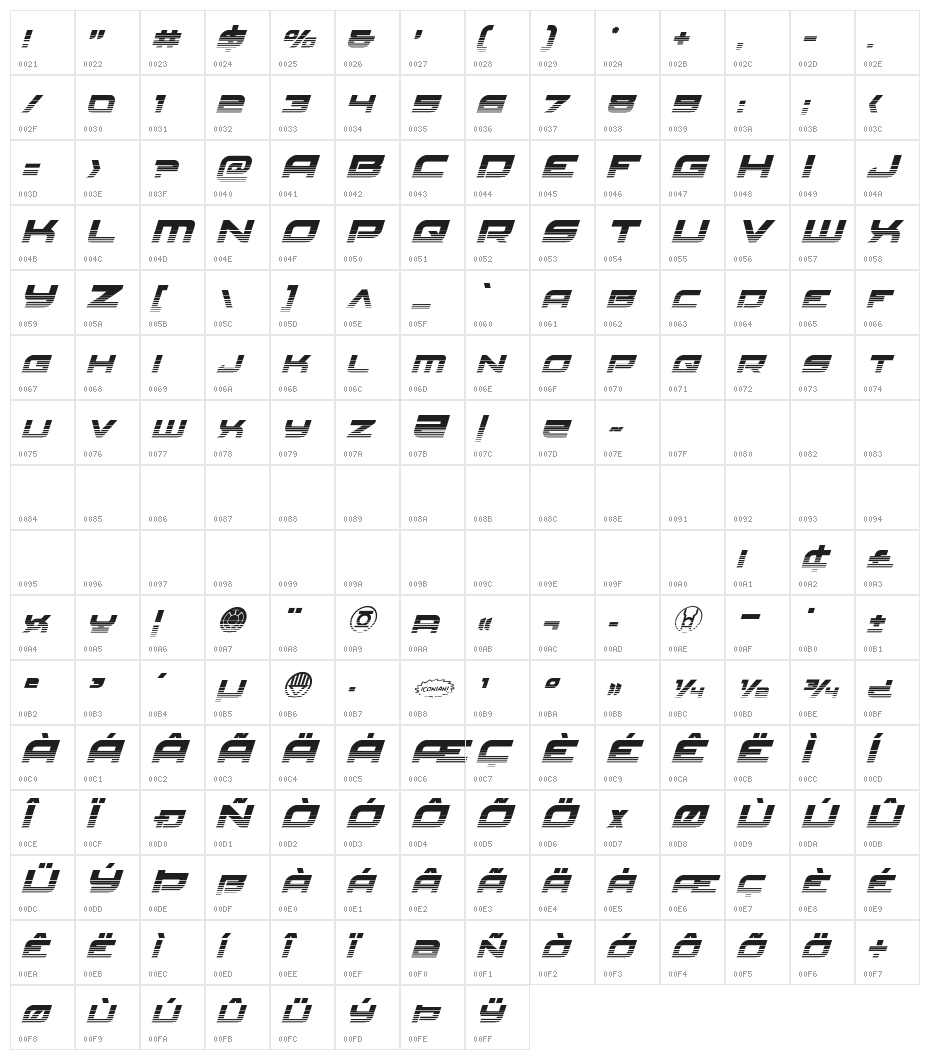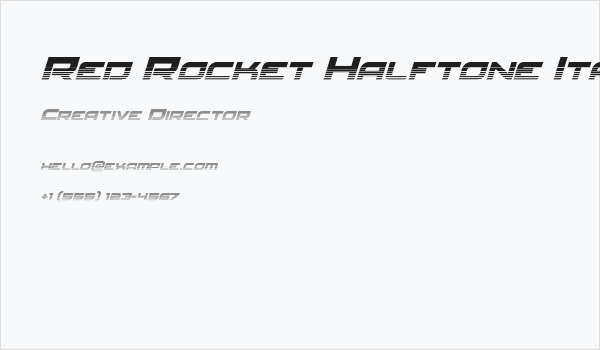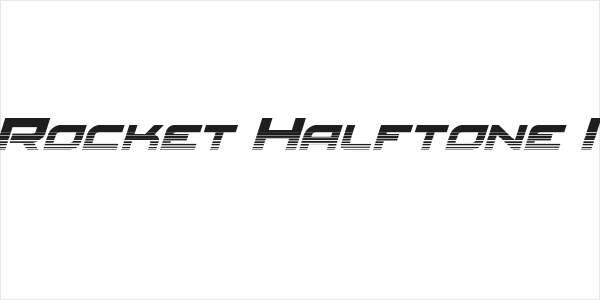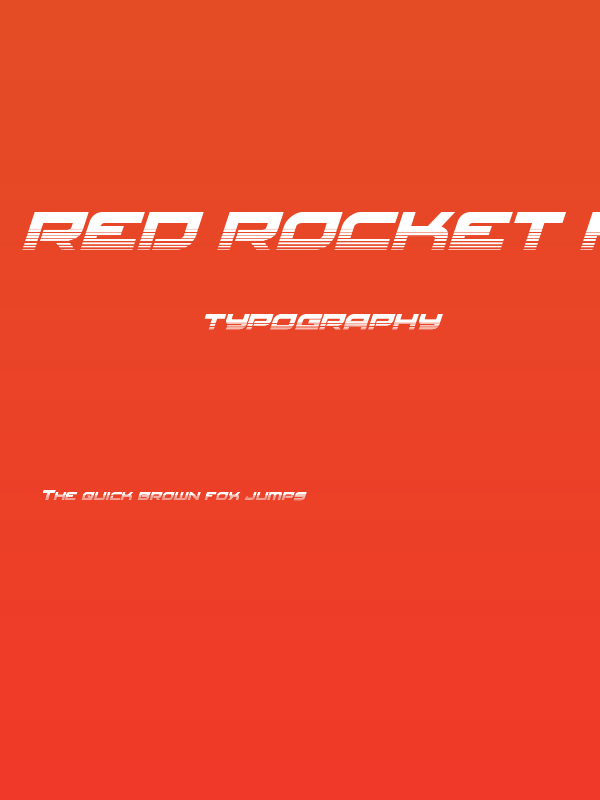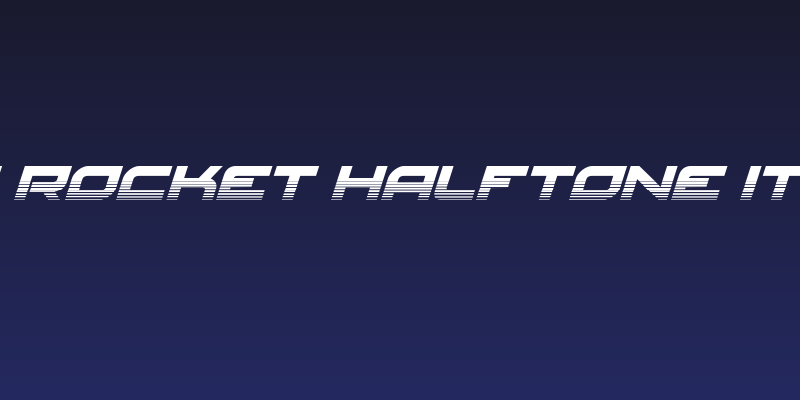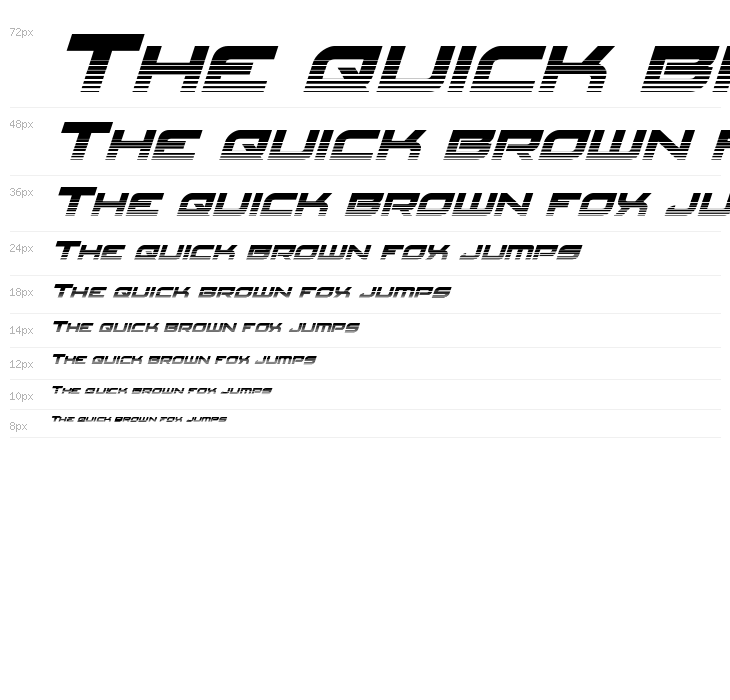
Red Rocket Halftone Italic Font
Red Rocket Halftone Italic Description
This font features a dynamic and futuristic design with a halftone effect that gives it a sense of motion and speed. The italicized style enhances its forward-leaning appearance, making it ideal for projects that require a modern and energetic look. The characters are composed of bold, horizontal lines that create a unique visual texture. This font is particularly suitable for headlines, posters, and branding that aim to convey a sense of innovation and progress.
| Proposed Projects | Ideal for use in futuristic branding, sports team logos, tech event posters, and dynamic advertising campaigns. |